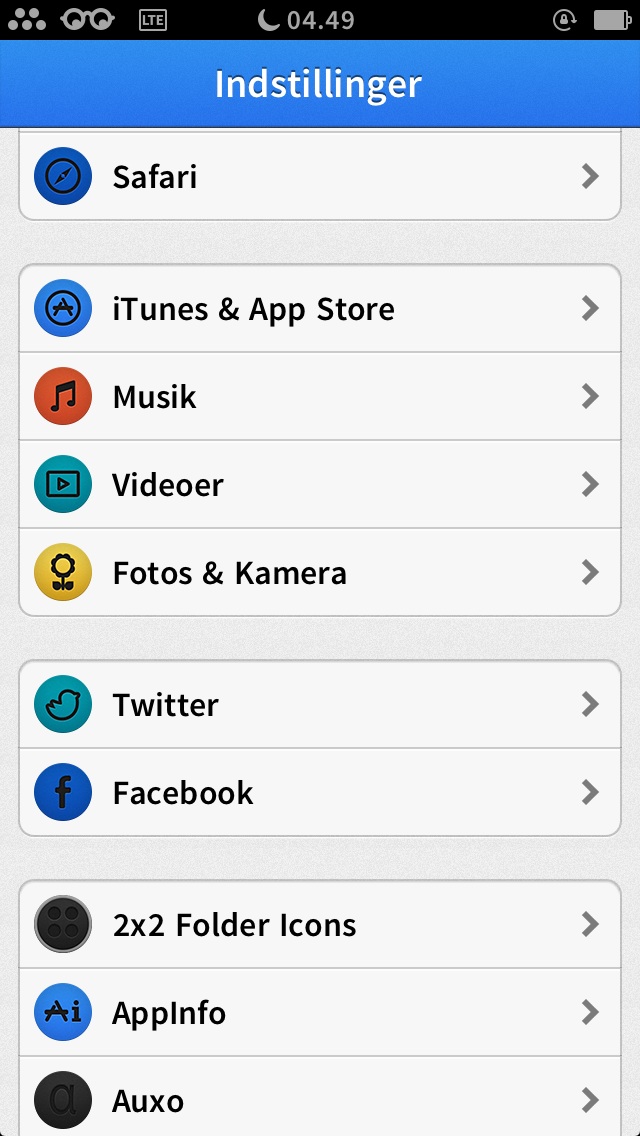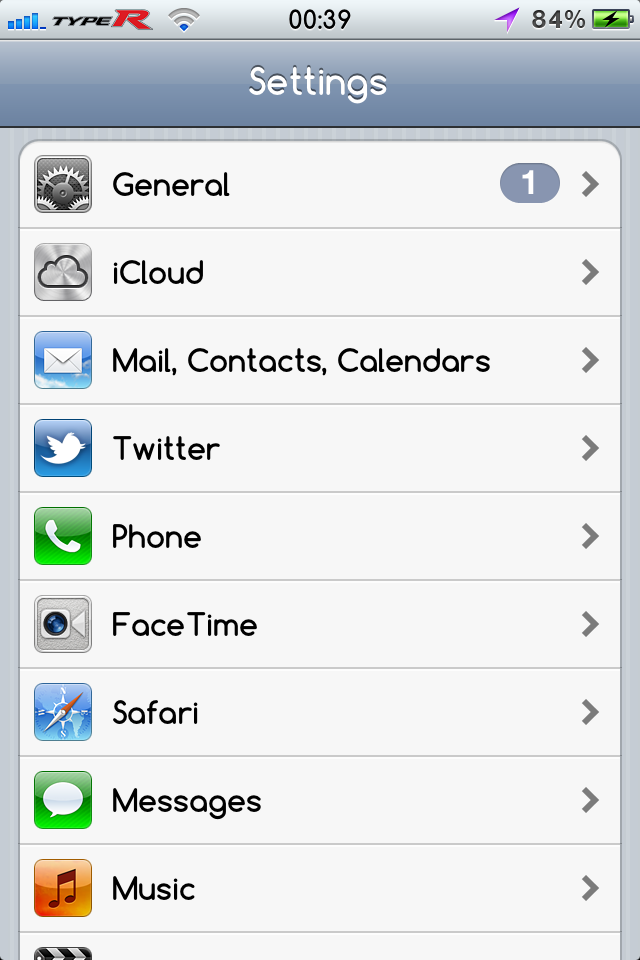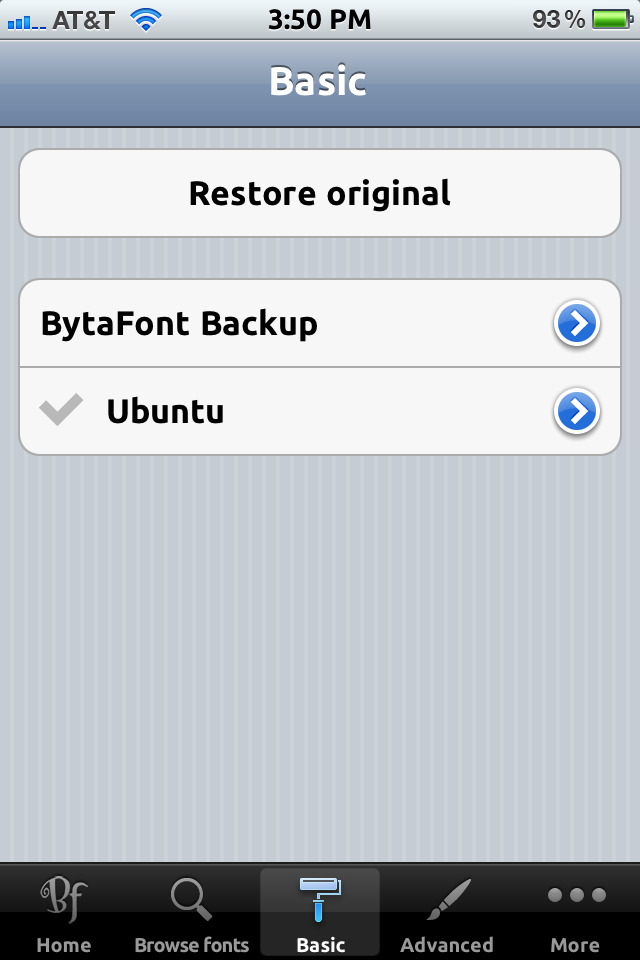
I'm the same exact way. I'm gonna give Avenir Light a try, but I'm sure I'll end up right back at Ubuntu Titling. LOL.
Haha yup that's pretty much my experience at changes fonts. Try something new but end up back at Ubuntu titling. Although I must admit, since updating to iOS6 I haven't used bytafont.
Source sans Pro light + regular
Insane repo! Thanks for the heads up. I'm sporting Avenir now too :D And, I'm very selective with my fonts. This one is definitely top notch for viewing on an iPhone.
Jaku Font?
I have the Jaku theme installed which is by far my favorite theme, which font, your opinion, best matches the style of the Jaku theme?
I just switched to Merge Regular after I saw this post.
Hahah me too! As soon as he posted those pics and I saw that font, I immediately asked him what font he was using. I love it. I normally don't care for fonts because I always use Ubuntu Titling. But that font jumped out at me. Merge Regular might be replacing Ubuntu Titling as my main go to font...I never thought I'd say that either lol
Its a great, clean, easy to read font. Props to that poster for sharing!
Hahah me too! As soon as he posted those pics and I saw that font, I immediately asked him what font he was using. I love it. I normally don't care for fonts because I always use Ubuntu Titling. But that font jumped out at me. Merge Regular might be replacing Ubuntu Titling as my main go to font...I never thought I'd say that either lol
Its a great, clean, easy to read font. Props to that poster for sharing!
Here are the subtle differences between the two above listed fonts:
Ubuntu Font:
MergeRegular Font
The two font almost appear the same, the first being slightly highlighted.
Here are the subtle differences between the two above listed fonts:
Ubuntu Font:
MergeRegular Font
The two font almost appear the same, the first being slightly highlighted.
That top one is Ubuntu Titling which is different from Ubuntu. Compared to Merge Regular some letters (e.g. u, a, g) are more rounded in Ubuntu Titling which does give it a different overall appearance.